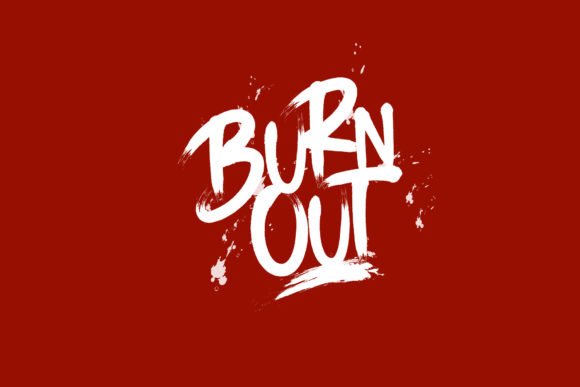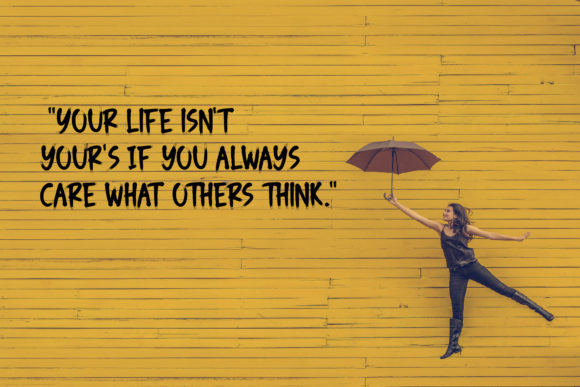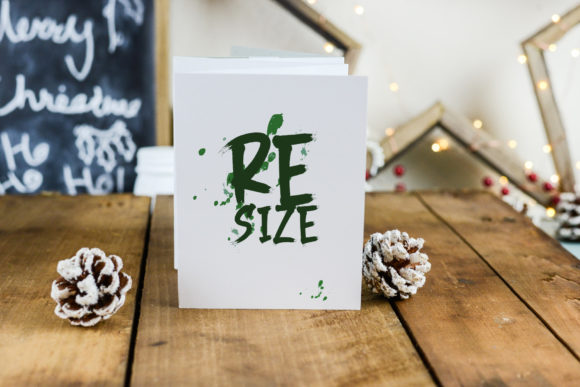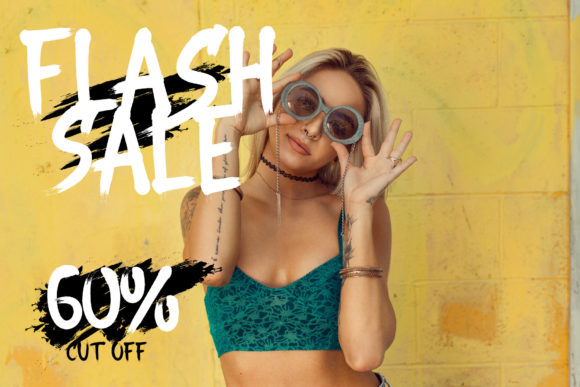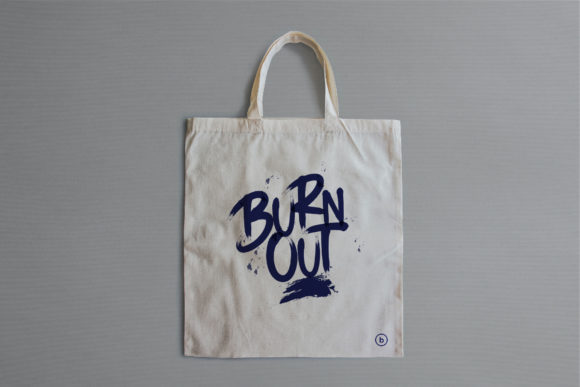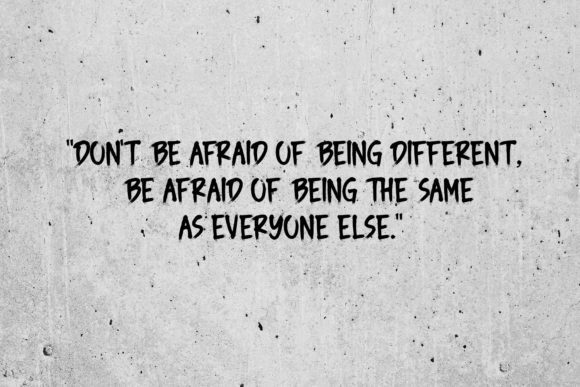
Introduction to Resize Font
Remember that moment when you stumbled upon the perfect design element, and your creative project suddenly came alive? It’s like a spark of inspiration hits, and you can’t wait to see your vision take shape. For designers, finding the right font can be just as magical. That’s why we’re excited to introduce you to Resize Font, a bold and brushed display font that’s about to become your new go-to design resource.
With Resize Font, you can add a personal and realistic touch to your designs, thanks to its authentic look and feel. Whether you’re working on a high-quality branding project or a creative campaign, this font is sure to elevate your work. Plus, with a transparent background, you can easily integrate it into any design without any distractions. And the best part? Resize Font is available for free download, making it an accessible and valuable addition to your design toolkit.
Key Features of Resize Font
- Unique characteristic: supports ligatures and contextual alternates for professional typography
Honest Review: Resize Font
As a designer, I’m always on the lookout for high-quality design resources that can elevate my creative projects. Recently, I stumbled upon Resize Font, and I’m excited to share my honest review with you.
What works well: ✨ I appreciate how easy it is to use Resize Font. The transparent background makes it seamless to integrate into any design. The high-quality fonts are also a major plus, giving my projects a professional touch. The free download option is a bonus, making it accessible to designers of all levels.
What doesn’t work well: ⚠️ While Resize Font is a great resource, I do wish there were more font styles to choose from. The current selection is limited, which can be a drawback for designers working on complex projects.
Overall, I’m impressed with Resize Font’s potential to enhance my creative projects. With a few more font styles added to the mix, it could be a top-notch design resource. For now, it’s a solid choice for designers looking for a reliable font solution.